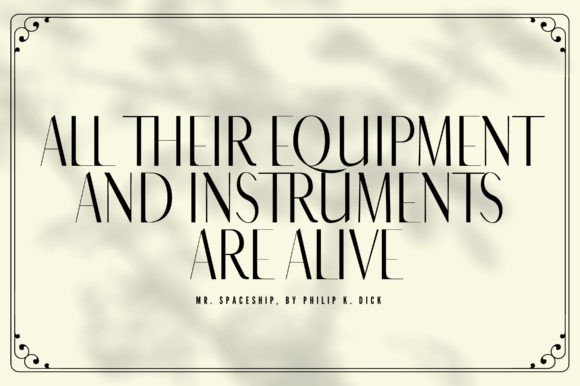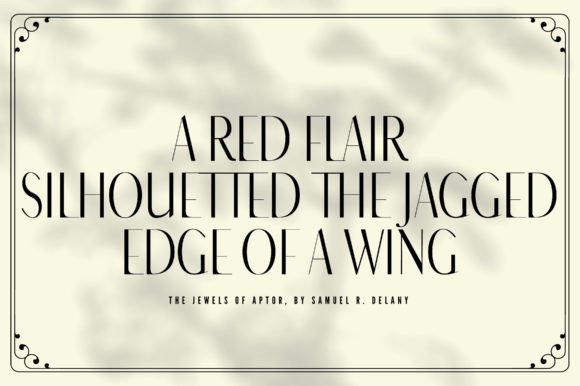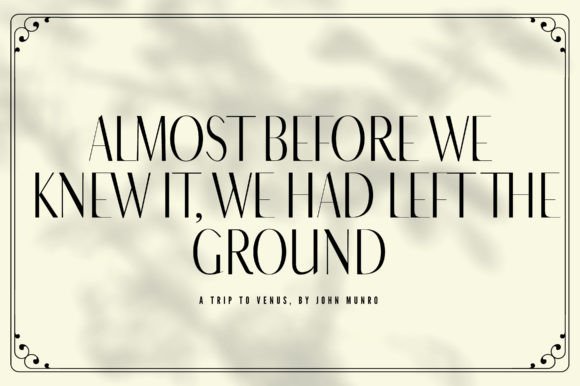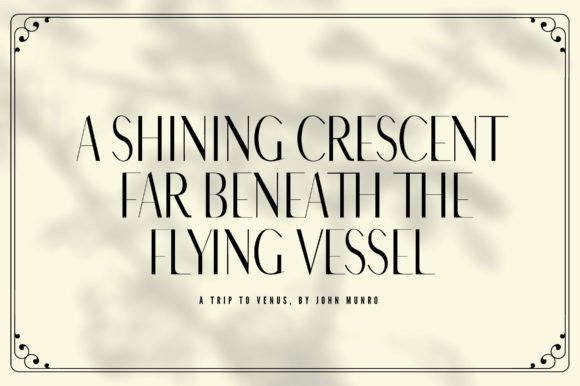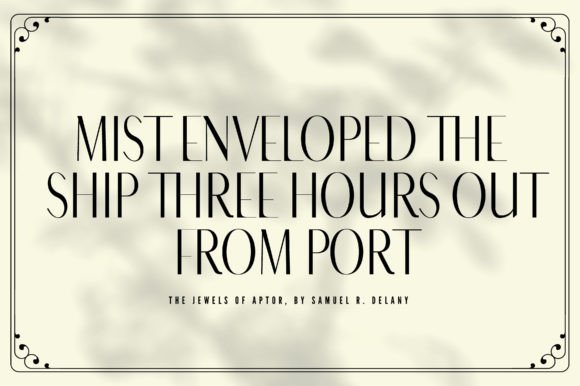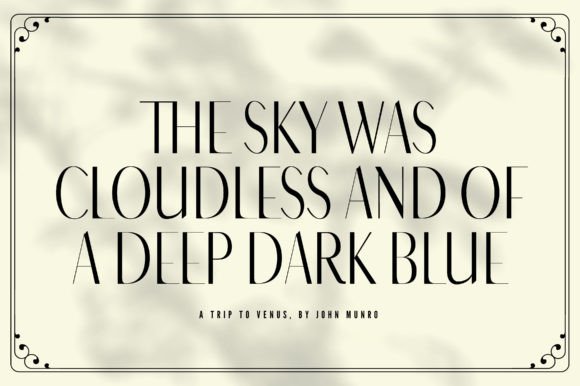
Discover the Elegance of Enegma Font
What Makes Enegma Special?
Enegma is more than just a font – it’s a design statement. With over 520 glyphs, this font offers versatility and creativity to your designs. Its clean lines and modern simplicity make it perfect for a wide range of applications, from logos and websites to brochures and magazines.
The Perfect Blend of Style and Readability
Enegma’s simple, yet striking design allows for easy readability at any size. The letters are evenly spaced and perfectly proportioned, creating a harmonious flow of text. The font’s slight curvature and subtle details add a softness to the overall look, while still maintaining its chic and modern aesthetic.
- ✨ Versatility: Enegma offers a wide range of glyphs, making it suitable for various design projects.
- ✅ Readability: The font is easy to read, even at small sizes.
- 💡 Customization: Enegma includes a range of special characters and symbols, allowing for increased creativity.
- 📈 Scalability: The font looks great at any size, making it perfect for various applications.
- 🤔 Limited Expressiveness: Enegma’s minimalist design might not be suitable for projects that require a more playful or expressive font.
The Story Behind Enegma
Enegma was designed with the goal of creating a font that embodies elegance and sophistication. The designer aimed to craft a font that would be both modern and timeless, with a unique blend of simplicity and style. The result is a font that is both versatile and refined, perfect for designers who want to add a touch of luxury to their work.
| Font Name | Enegma Font |
| Author | Minimalistartstudio |
| What is Enegma Font? | Enegma is a delicate, chic, and minimalist sans serif font designed for a wide range of applications. |
| How many glyphs does Enegma have? | Enegma has over 520 glyphs, offering versatility and creativity to your designs. |
| Is Enegma suitable for body text? | Yes, Enegma is designed to be easy to read, making it suitable for body text. |